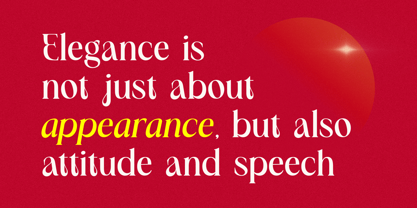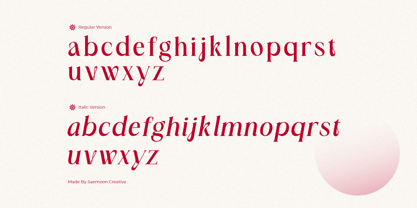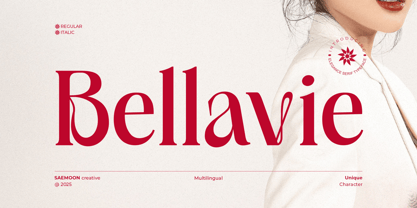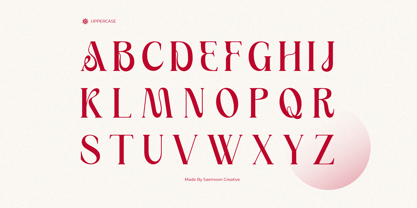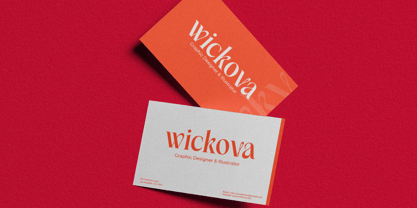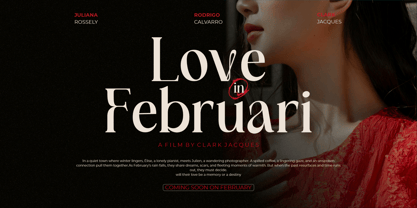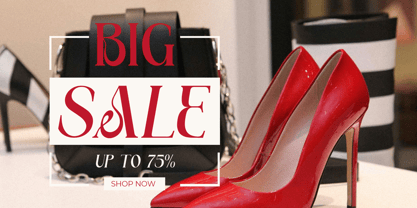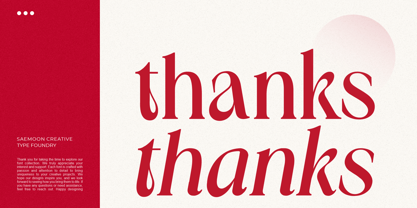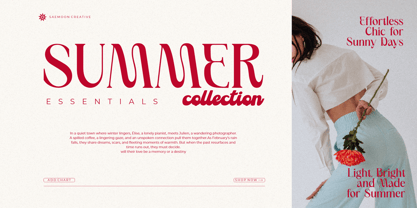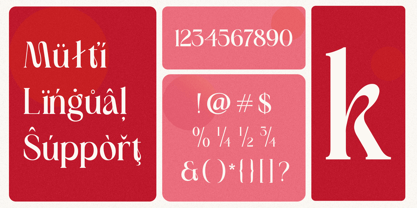
Bellavie
by Saemoon Creative
The Bellavie Font Family was designed by Sapto Susilo and published by Saemoon Creative. Bellavie contains 2 styles and family package options.
Bellavie is an elegant serif font with a delicate feminine touch and a distinctive character. Its letterforms are designed with balanced proportions, soft yet defined serifs, and unique details that exude grace and modernity.
Perfect for luxury branding, fashion editorials, exclusive packaging, and aesthetic social media designs,
Bellavie embodies a sophisticated and stylish appeal. With a blend of elegance and uniqueness, this font is the ideal choice for designers looking to create a refined and captivating look